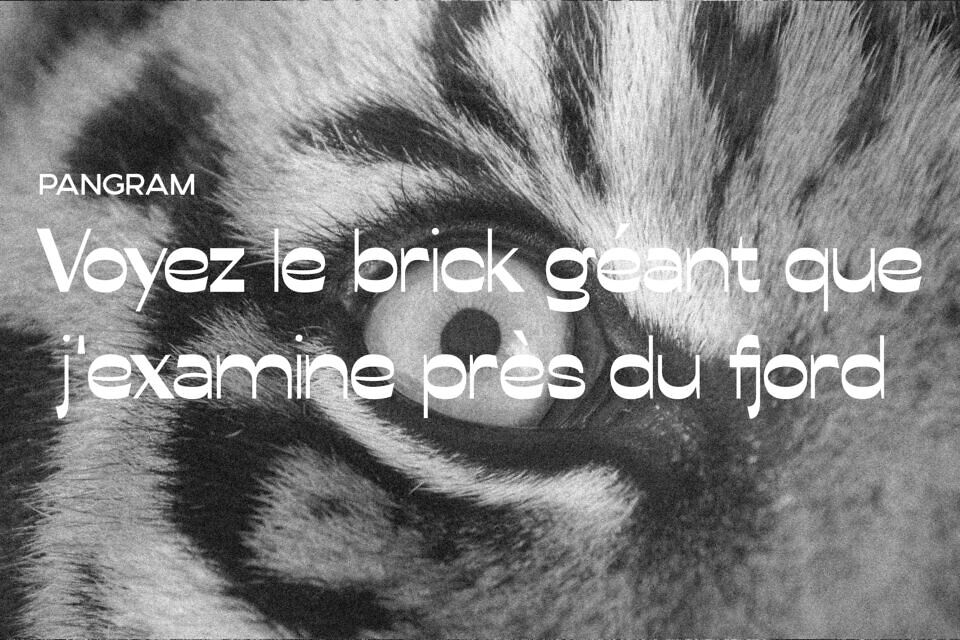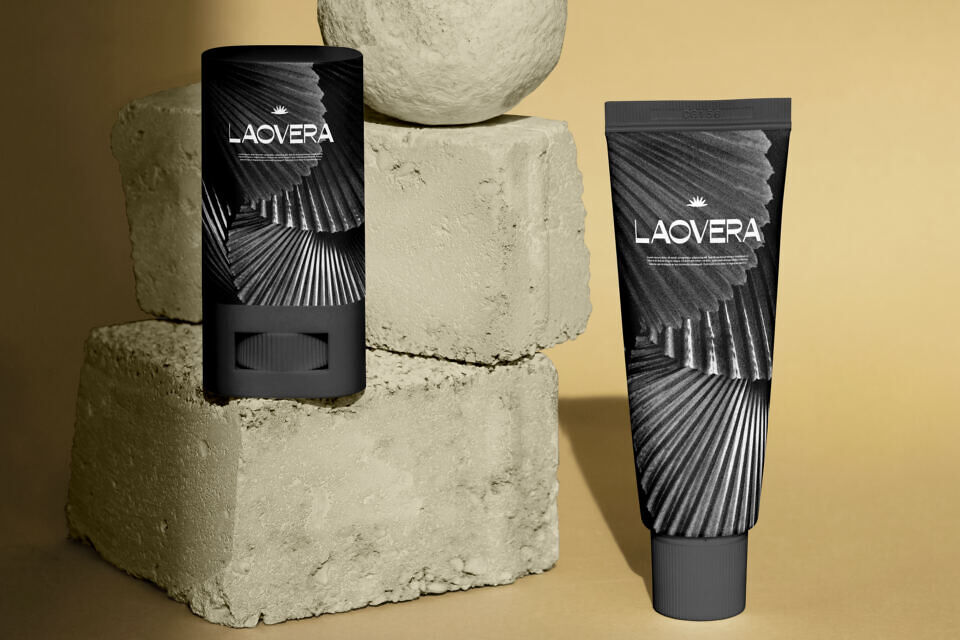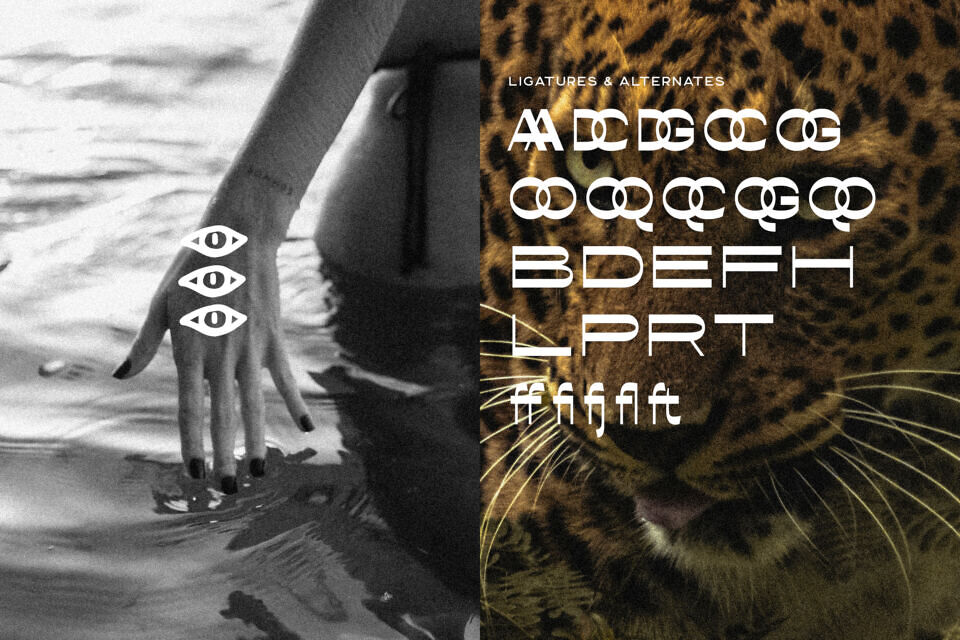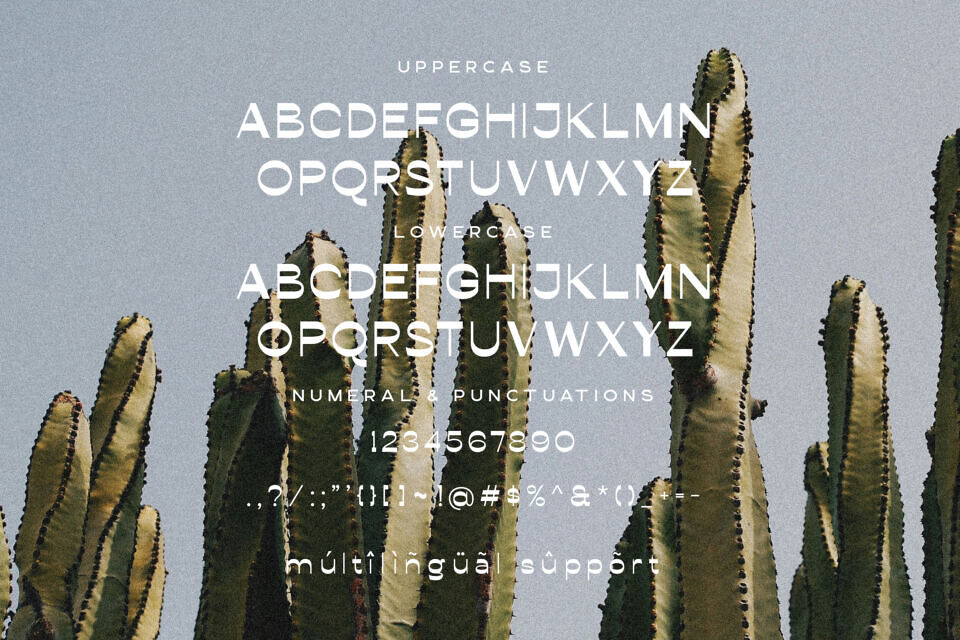
Conega Font
Conega is a modern sans serif display font crafted to deliver a clean, aesthetic, and highly contemporary feel to any visual project. Designed with a focus on clarity and visual harmony, Conega brings together refined geometry and smooth, balanced proportions that give every letter an elevated sense of intention.
The font’s structure blends simplicity with sophistication, creating a confident and elegant presence that instantly enhances any design. Whether used in a bold headline or a subtle brand element, Conega maintains its polished appearance and contributes to a cohesive visual identity.